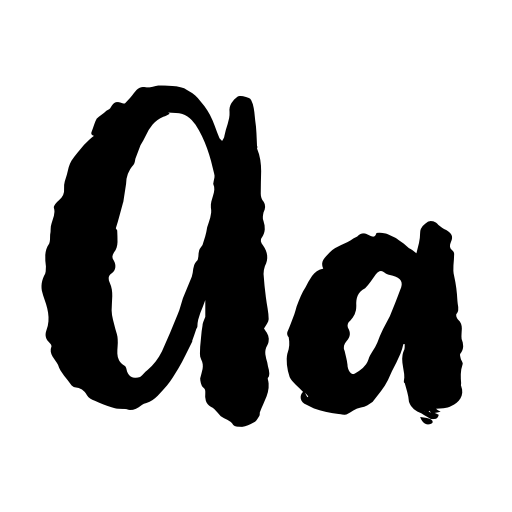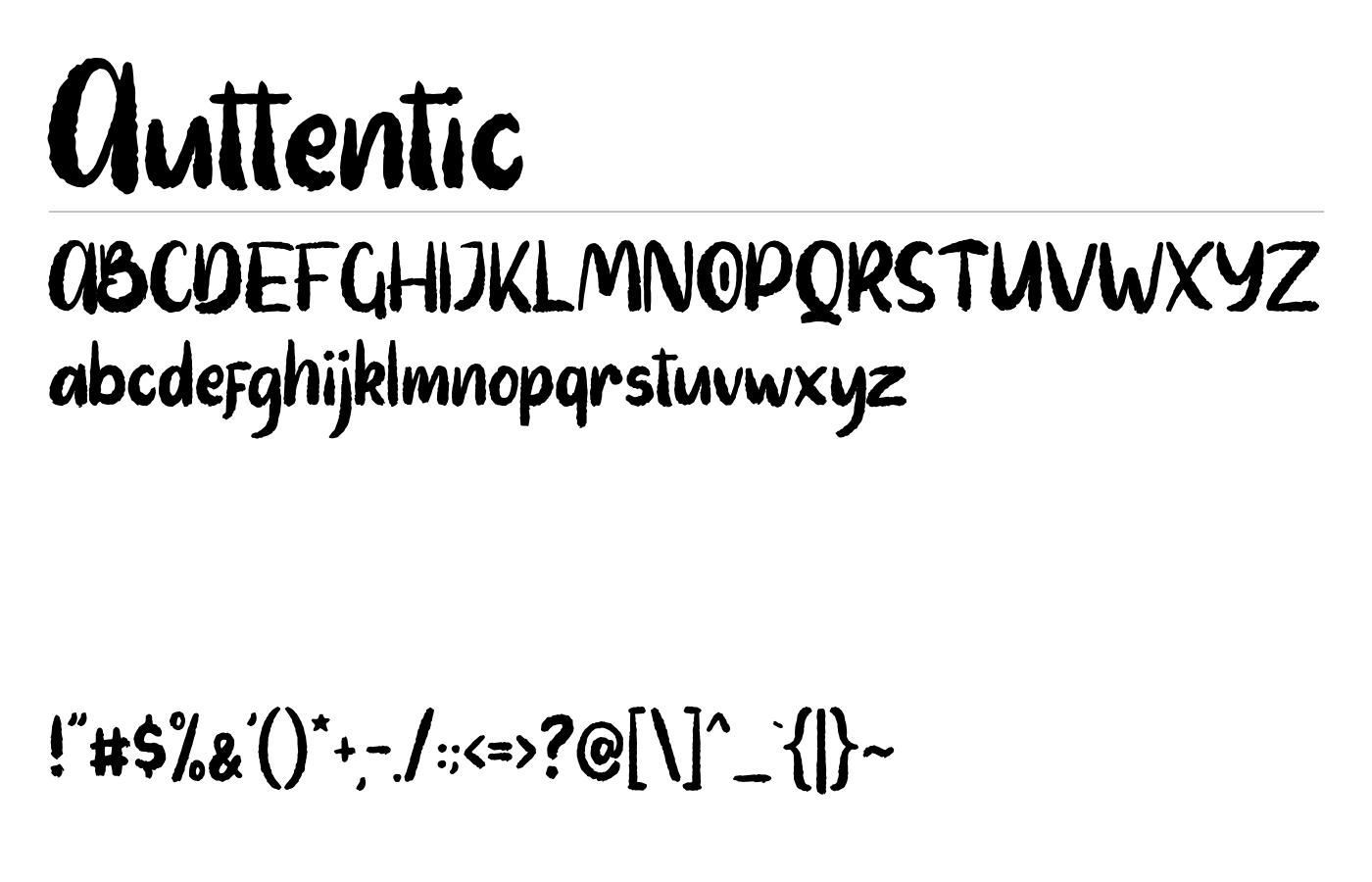
Auttentic is a bold, hand-drawn sans serif font with a casual, textured look that mimics natural brush strokes. Its irregular, slightly rough edges and playful letterforms give it a friendly, approachable personality, making it ideal for creative projects, informal branding, and eye-catching headlines. This font works well where a spontaneous, authentic feel is desired, such as posters, logos, and artistic packaging.
Auttentic Font
About Auttentic Font
| Font family | Auttentic Font |
| Designer | Good Java Studio |